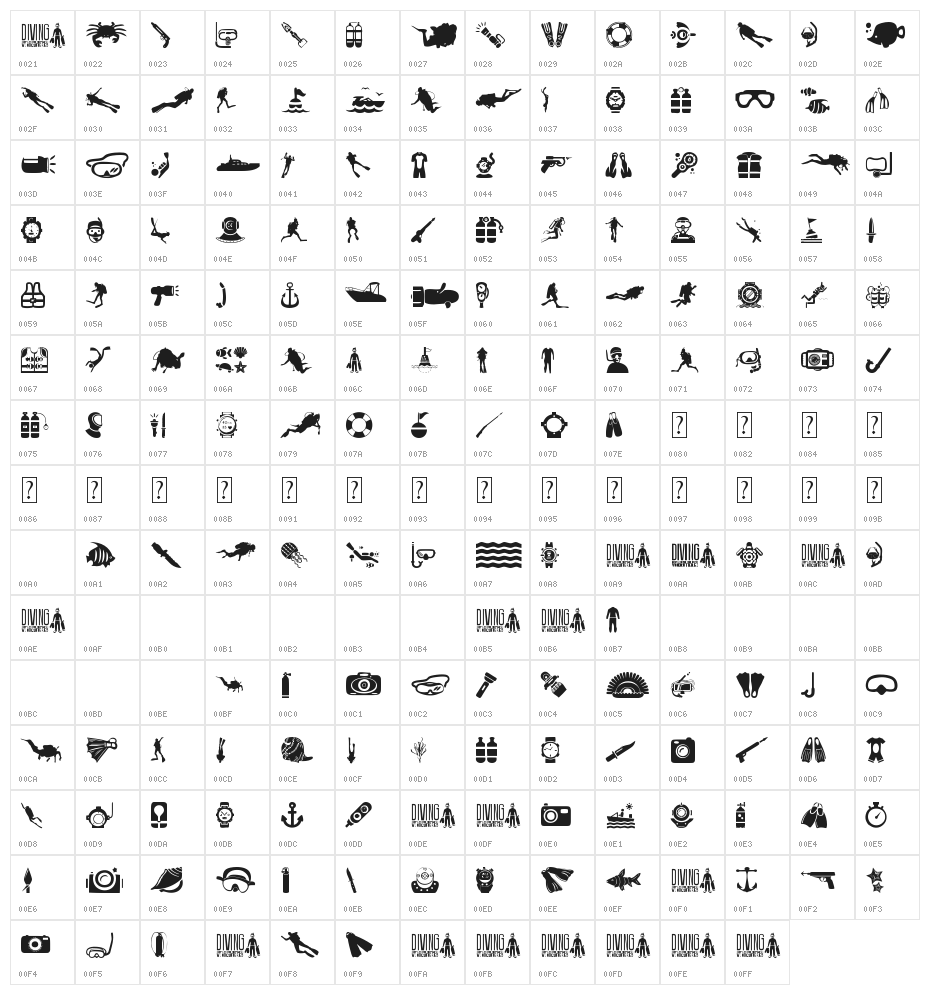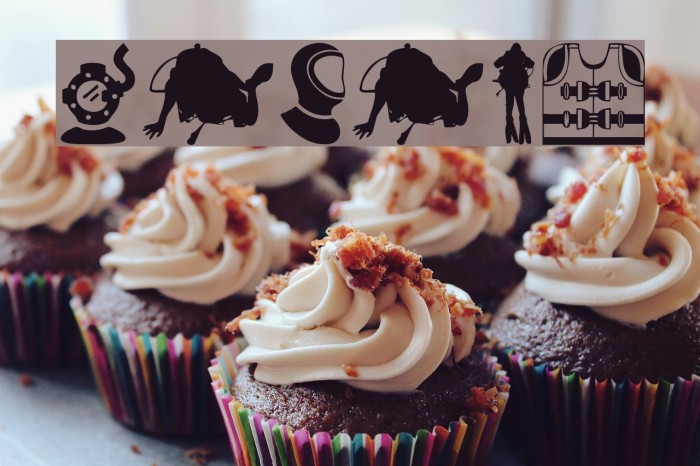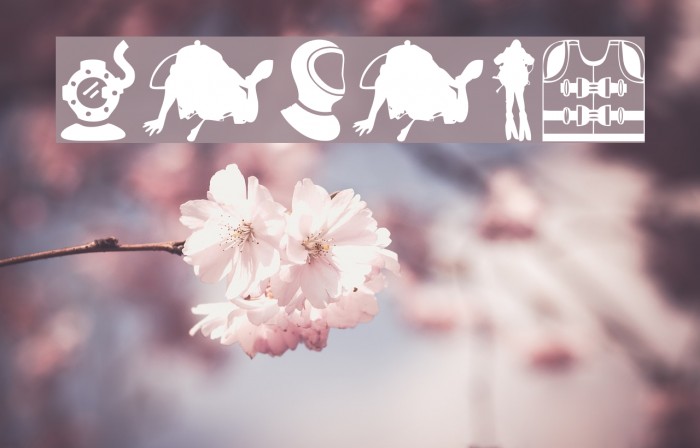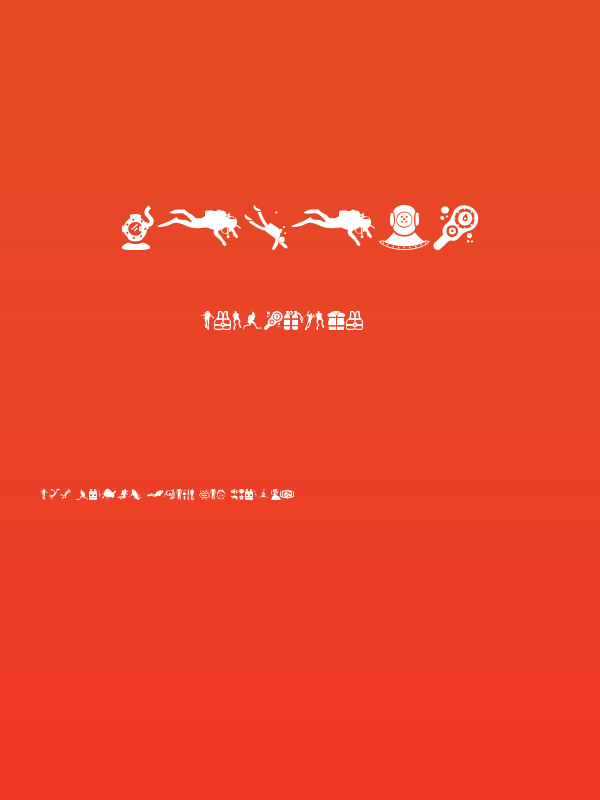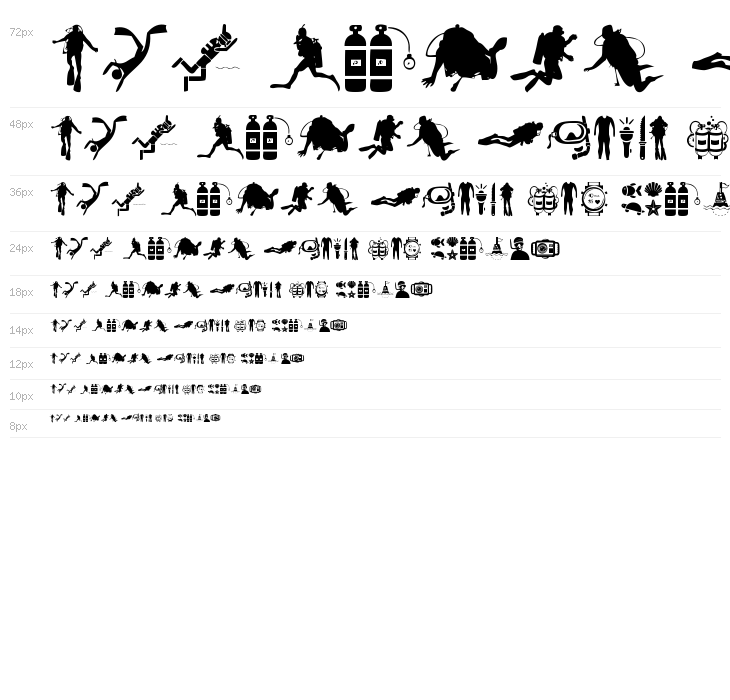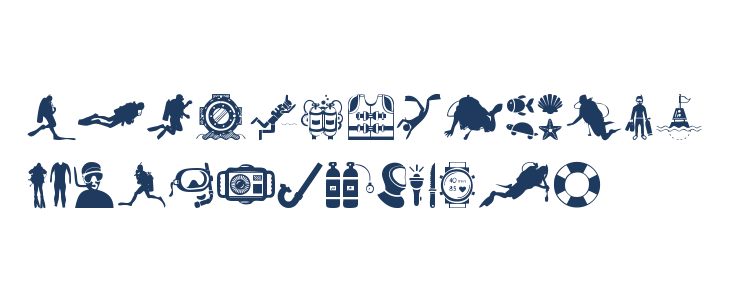
Diving Font
Diving Description
A decorative display font composed entirely of diving and underwater-themed pictograms, including divers, equipment, marine life, and related symbols. Each character is represented by a unique, bold, and highly stylized icon, making the set visually engaging and thematic.
| Overall Style | Decorative, Thematic, Modern |
| Use Case | Logos, Posters, Signage, Infographics, Educational materials |
| Proposed Projects | Perfect for diving club branding, event posters, educational materials, infographics, themed signage, and childrenΓ’β¬β’s books about marine life. |